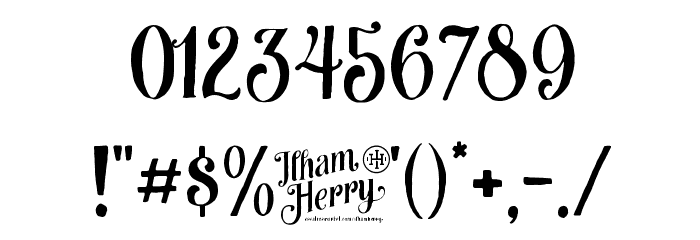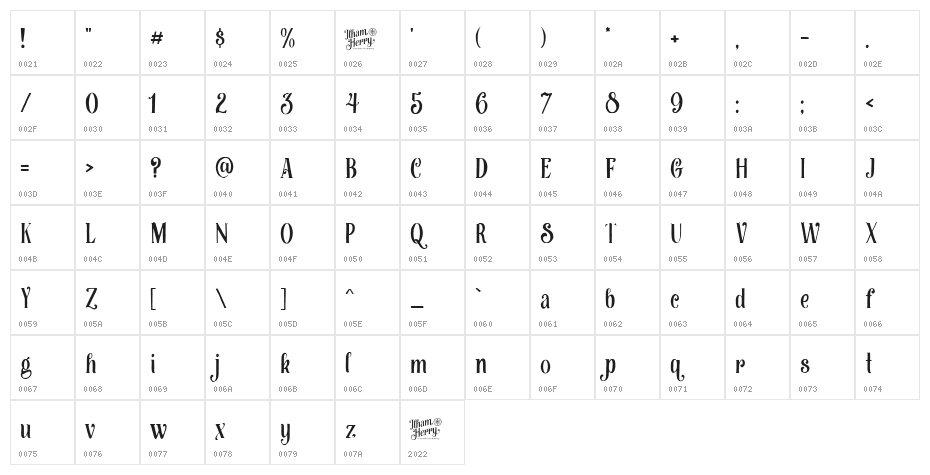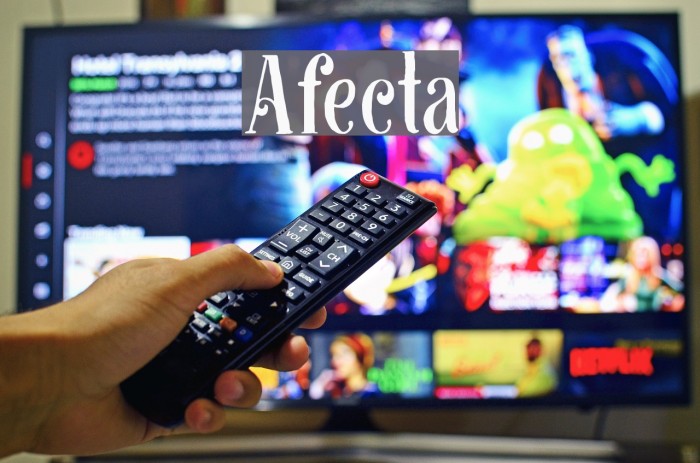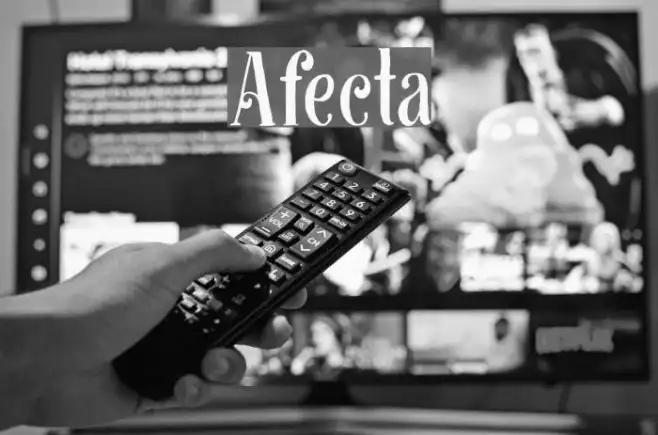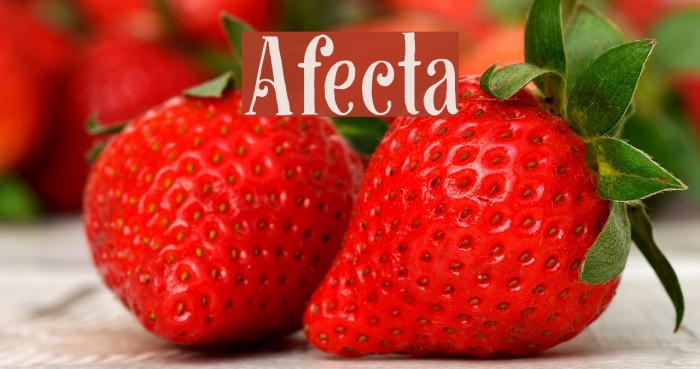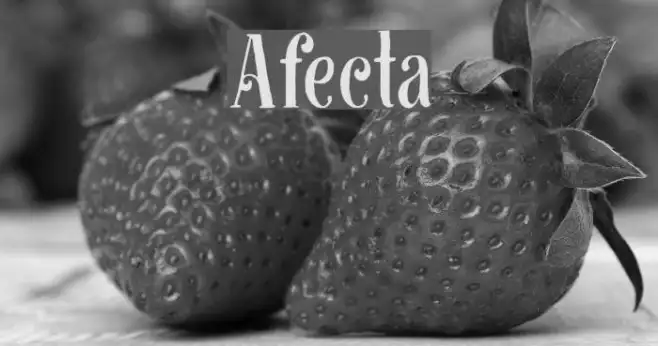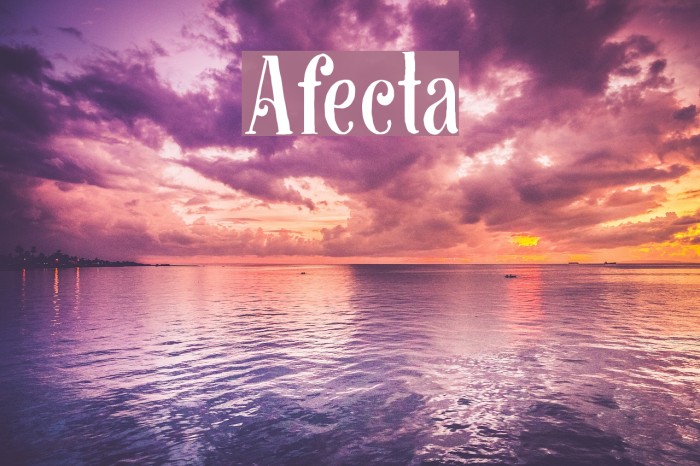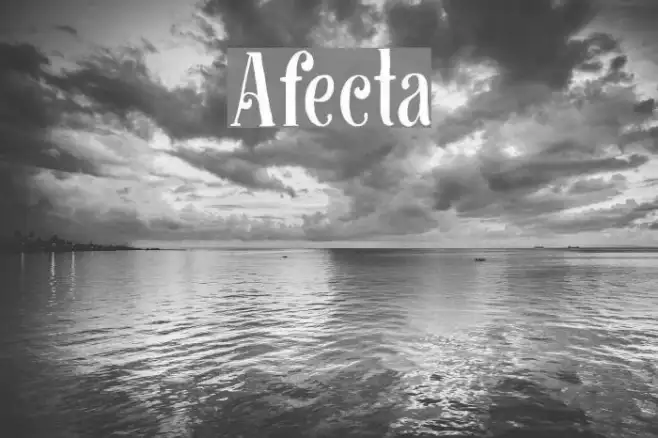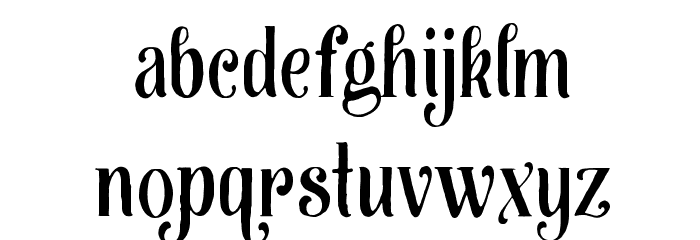
Afecta Font
Afecta Description
This font features a decorative and playful style with a unique blend of bold and whimsical elements. The uppercase letters are characterized by their tall, narrow forms with distinct serifs and occasional swashes, adding a touch of elegance and flair. The lowercase letters maintain a consistent style, with some characters exhibiting playful curls and loops. The numerals are bold and clear, ensuring readability while maintaining the font's decorative nature. Special characters are designed with the same attention to detail, making them suitable for creative and artistic projects.
| Proposed Projects | Ideal for creative projects such as invitations, posters, branding, and packaging designs that require a touch of elegance and playfulness. |